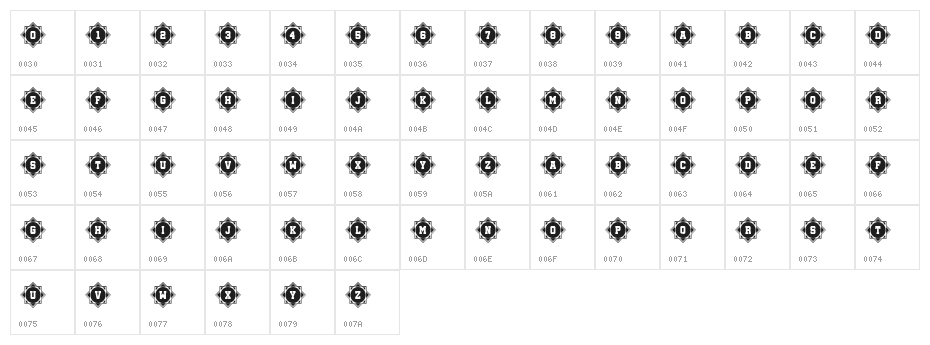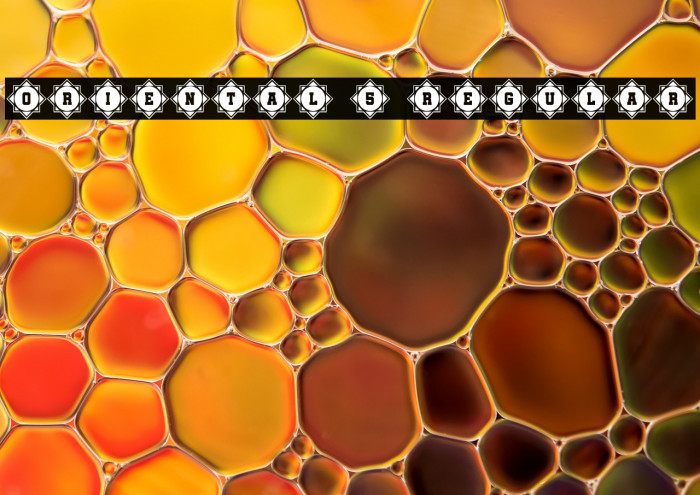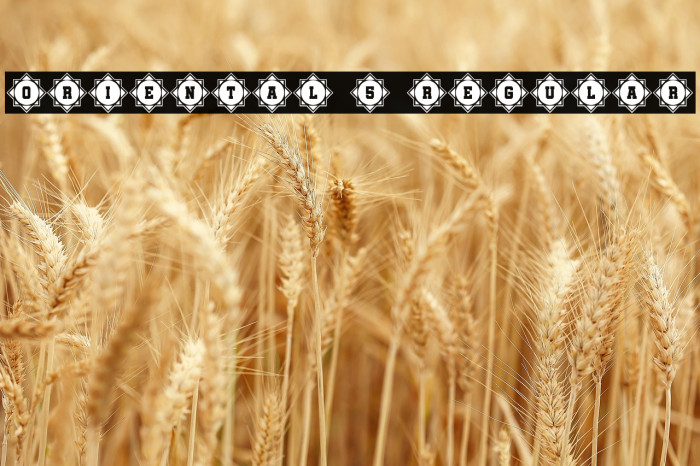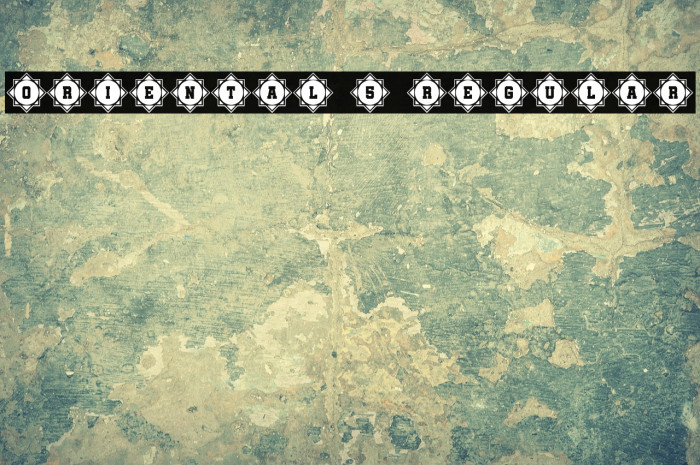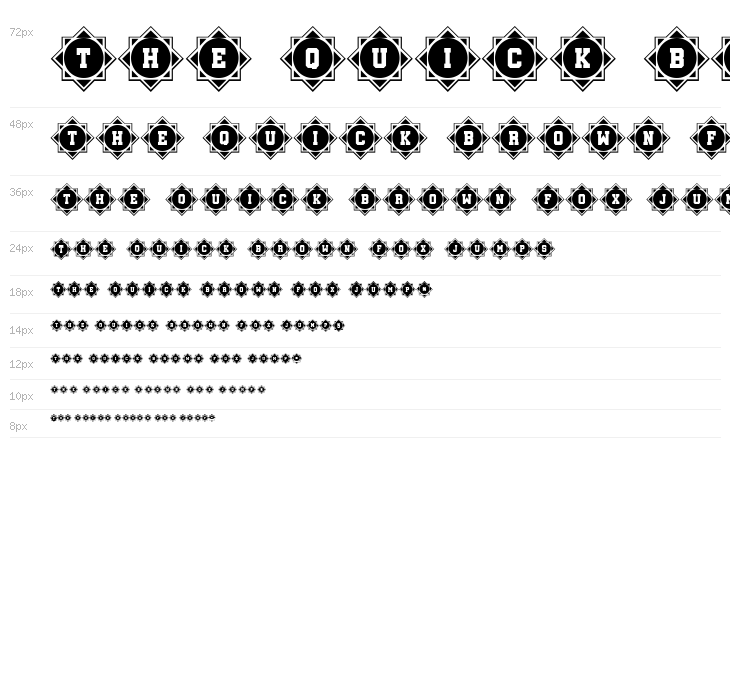
Oriental 5 Regular Font
Oriental 5 Regular Description
This font features a unique and decorative style, with each character enclosed in a star-like geometric shape. The letters and numbers are bold and capitalized, providing a strong visual impact. The design is reminiscent of traditional Eastern motifs, giving it an exotic and ornamental appearance. The characters are evenly spaced within their individual frames, ensuring clarity and readability despite the intricate design. This font is ideal for projects that require a touch of elegance and cultural flair, making it suitable for themed events, artistic displays, or branding that seeks to evoke a sense of tradition and sophistication.
| Use Case | Logos, Headlines, Artistic Displays |
| Proposed Projects | Ideal for themed events, artistic displays, cultural branding, and decorative signage. |